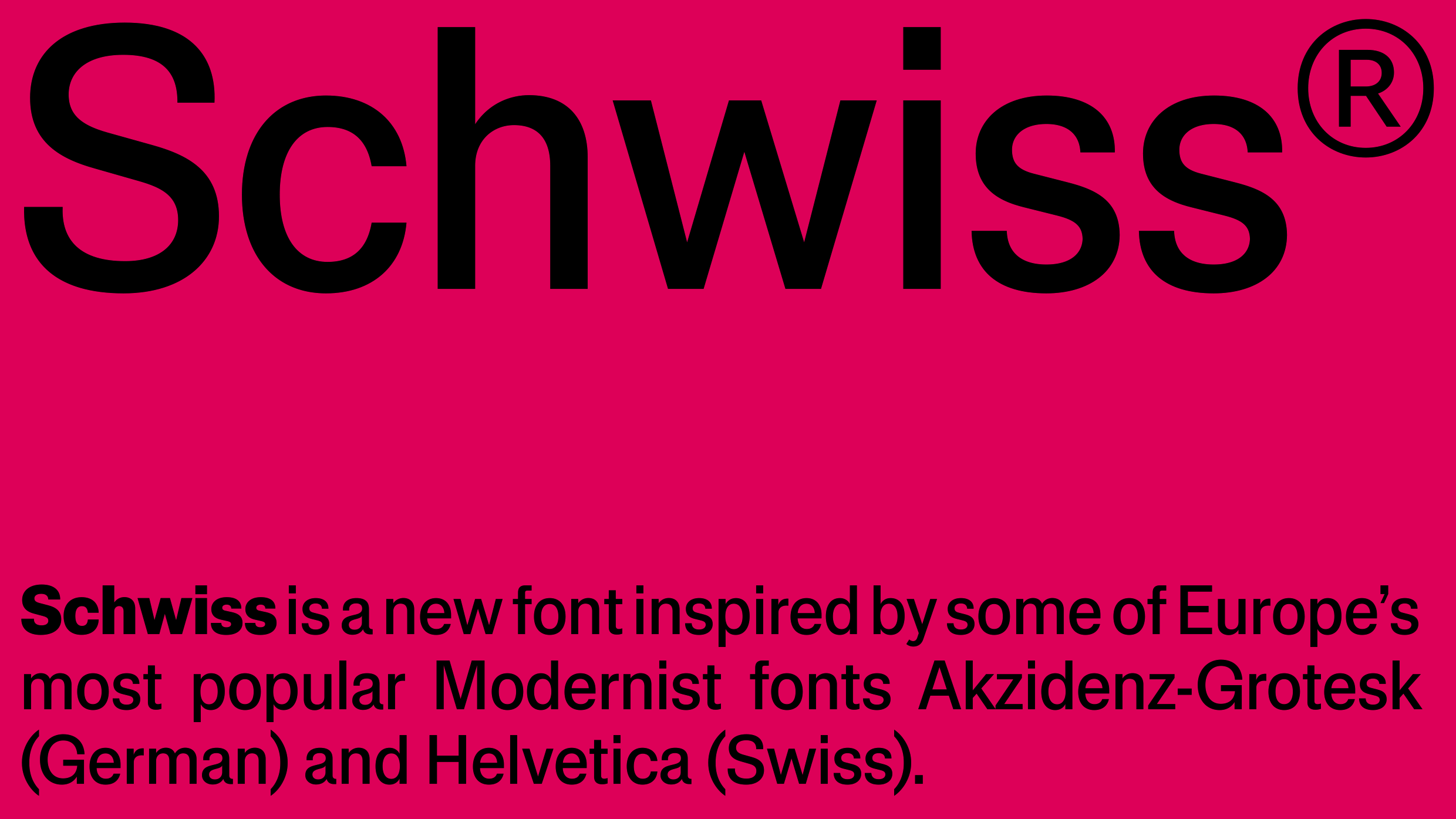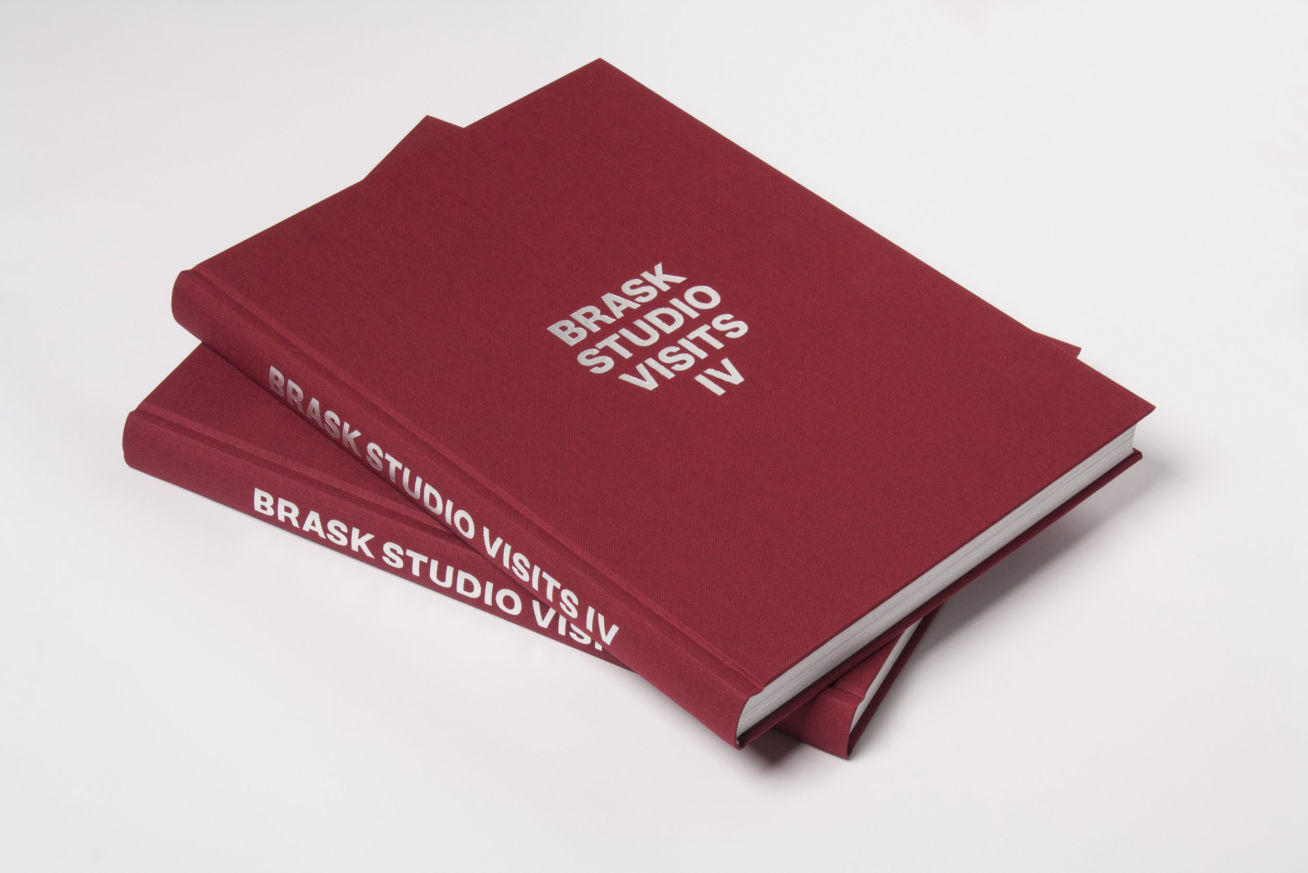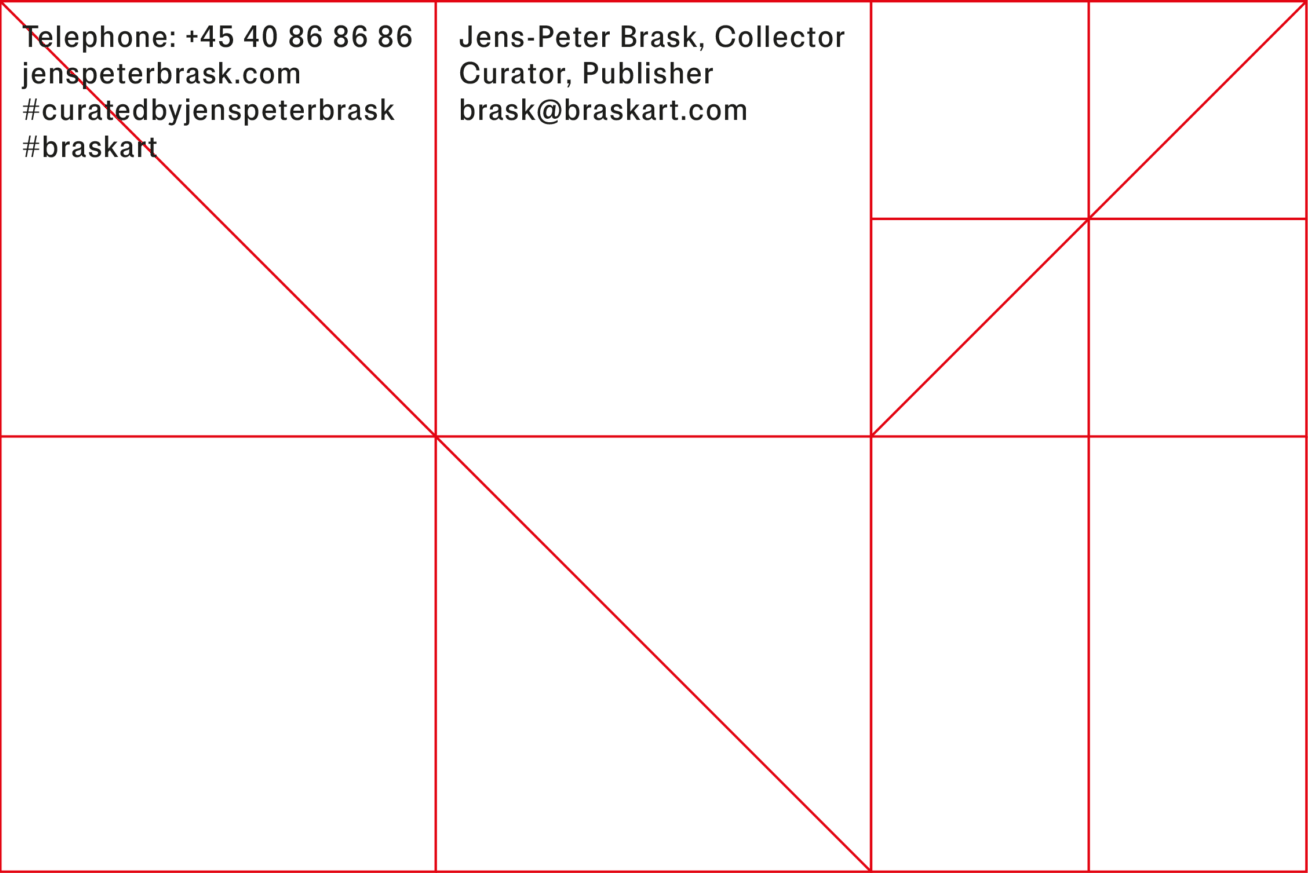
Schwiss is a new font inspired by two of Europe’s most popular Modernist typefaces: Akzidenz-Grotesk (German) and Helvetica (Swiss). Schwiss is a solid and versatile family of fonts crafted for designers seeking a new utilitarian Grotesk. Font details such as closed C, G, and S glyphs, large x-height, square punctuation, and clean monolinear shapes have been retained and reimagined as a 14-font type family. Schwiss looks both reassuringly familiar and refreshingly New!
| Font name: | Schwiss |
|---|---|
| Font category: | Sans/Grotesque |
| Styles: | Thin Thin Italic Light Light Italic Regular Italic Medium Medium Italic Semibold Italic Bold Bold Italic Black Black Italic |
| Script: | Latin |
| Manufacturer: | A2-TYPE |
| Designer: | Henrik Kubel |